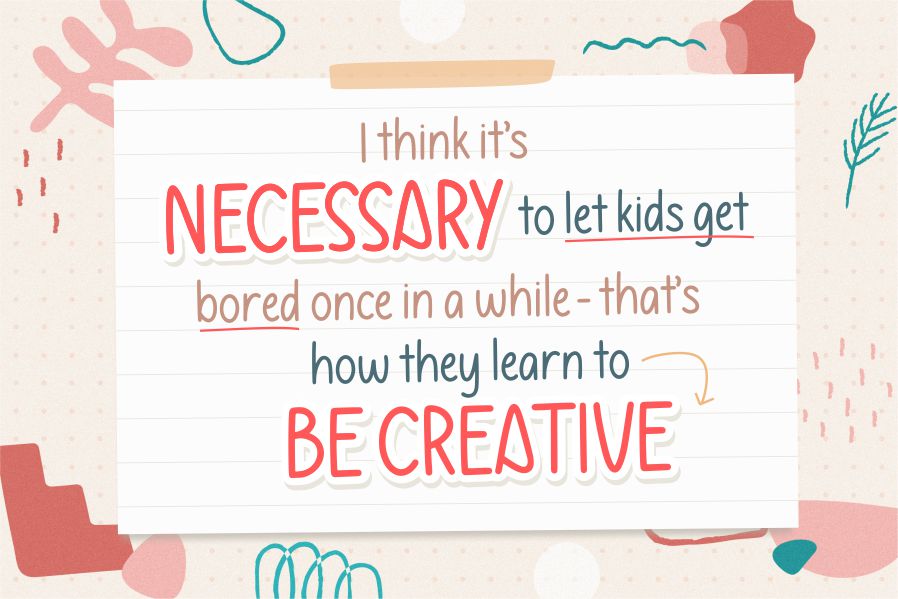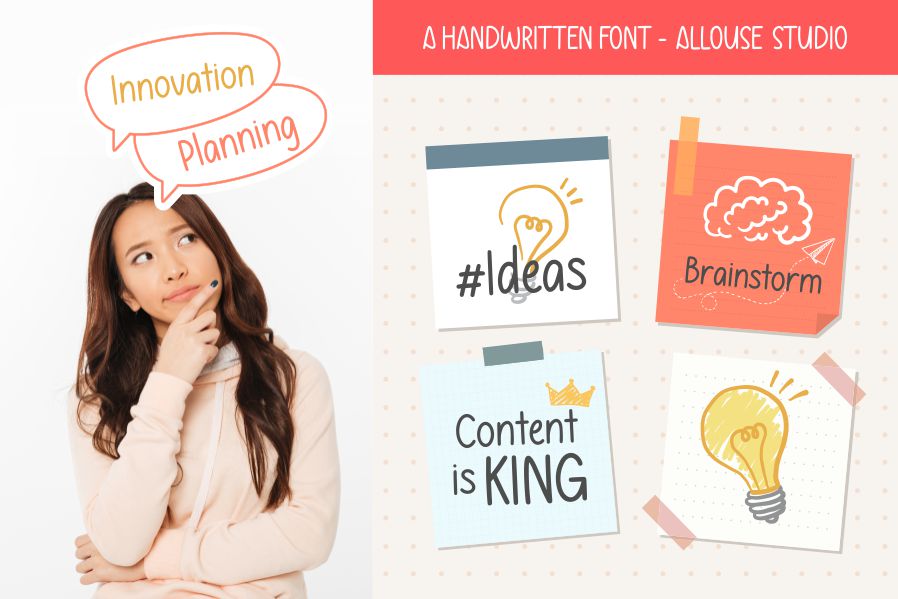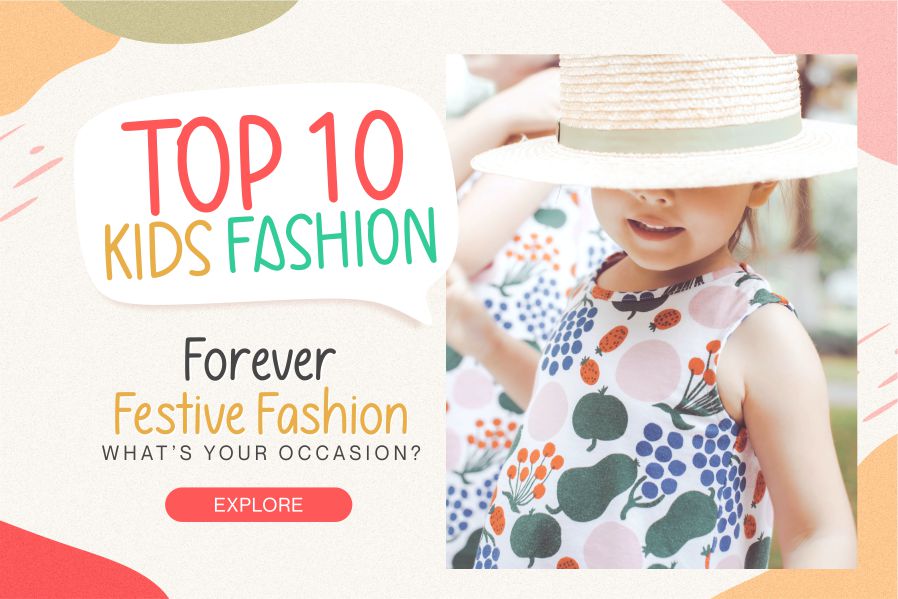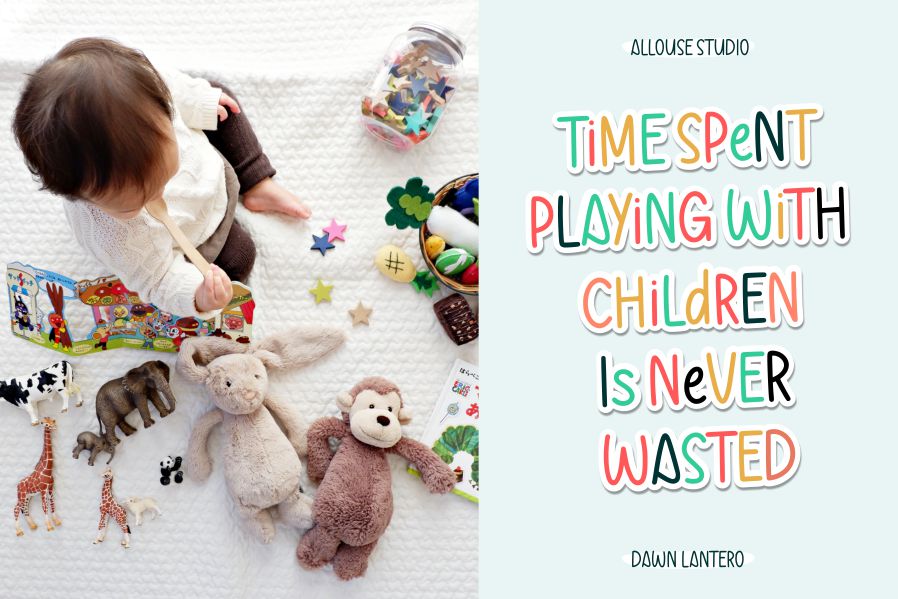
Joynoted Handwritten Font
This is a lovely script font featuring charming, playful characters that seem to dance along the baseline. Add this font to your most creative ideas, and notice how it makes them stand out!